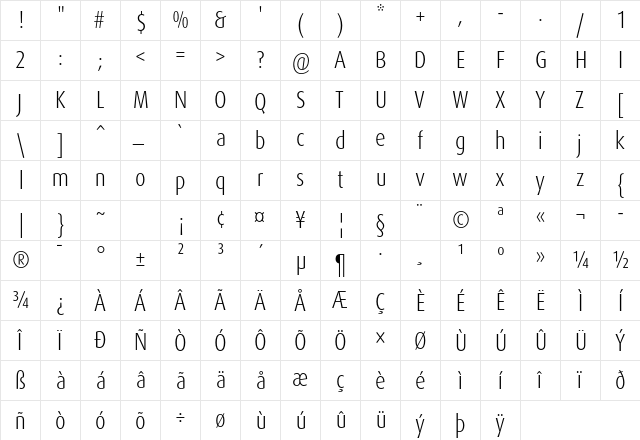
DaxOT CondLight
| Foundry | FSI Fonts und Software GmbH |
| Designer | Hans Reichel |
Design Context for DaxOT Typeface
DaxOT is a composed and adaptable typeface that performs quietly and consistently across a wide range of design contexts. Its slender proportions lend an understated elegance to any composition. The condensed width makes it efficient for tight spaces without sacrificing legibility.